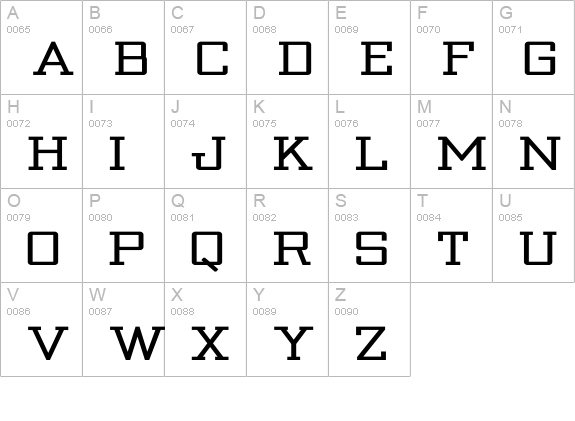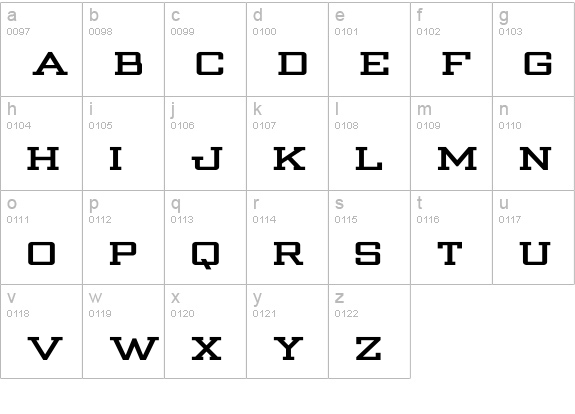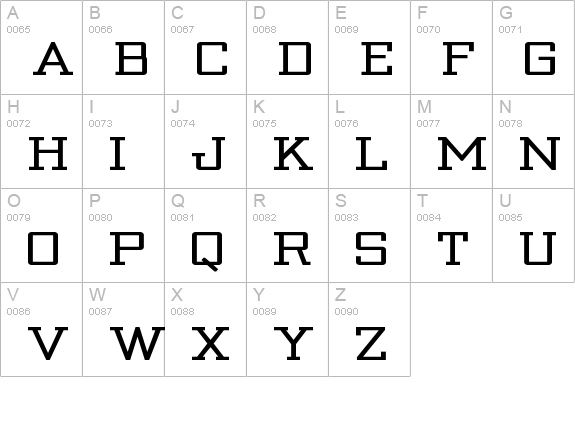
Strongman_Bold- Font Details
Strongman_Bold is a striking and powerful font that exudes strength and confidence. With its bold and impactful design, this font is perfect for making a statement and grabbing attention. Whether you're working on a poster, logo, or any other creative project, Strongman_Bold will help you stand out from the crowd. The best part? Strongman_Bold is available for free download at FontsMarket.com. So you can easily add this dynamic font to your collection without breaking the bank. Don't miss out on the opportunity to enhance your designs with this impressive typeface. Download Strongman_Bold today and unleash its bold energy in your projects.